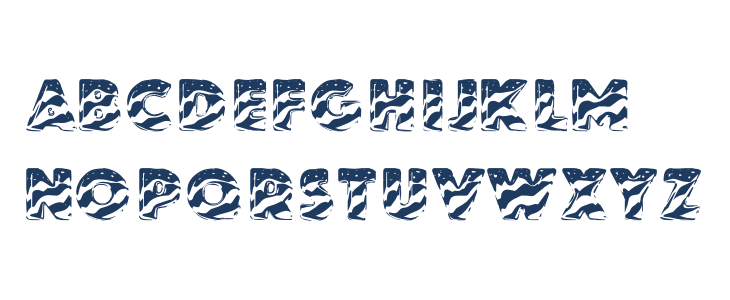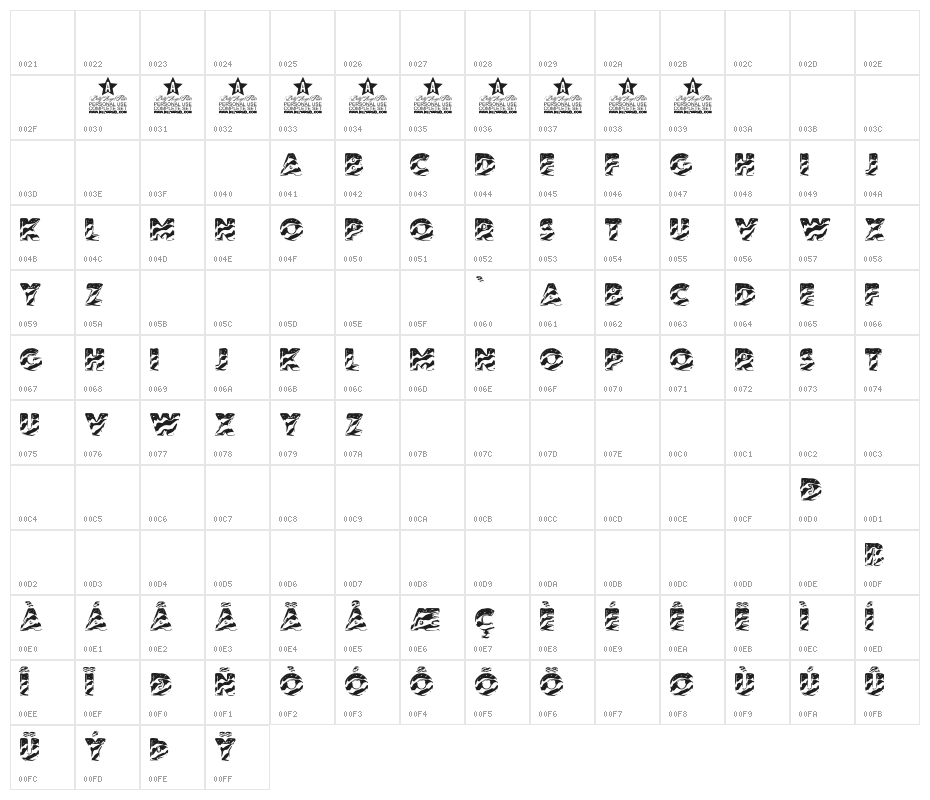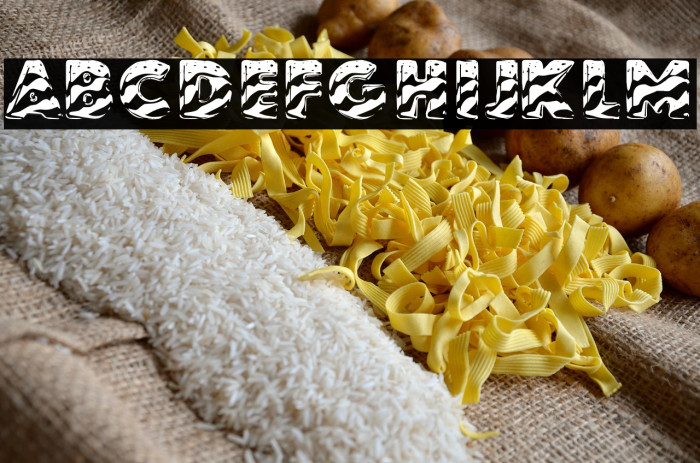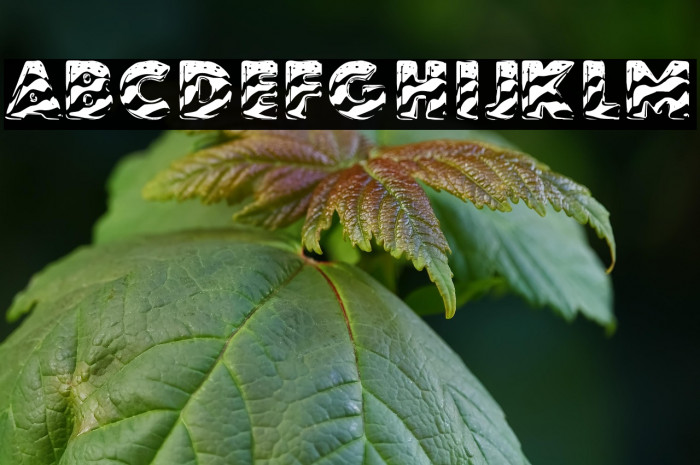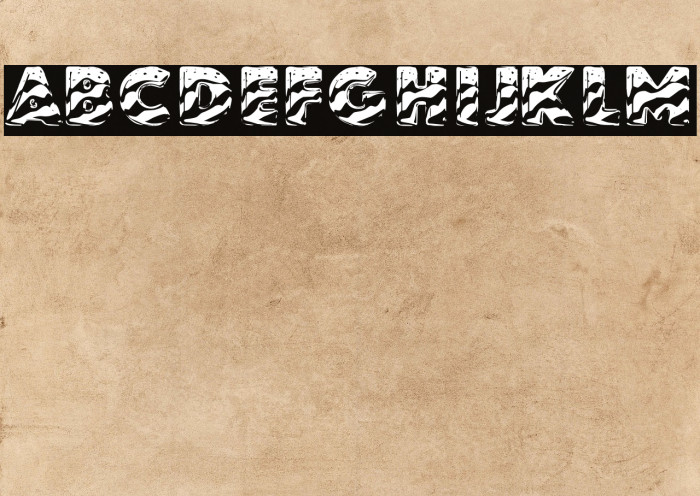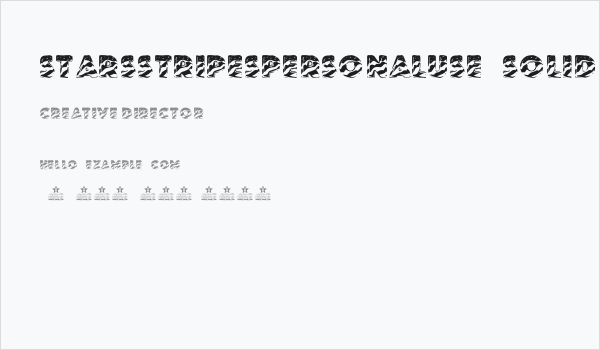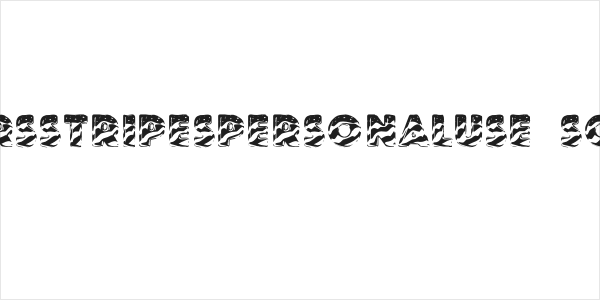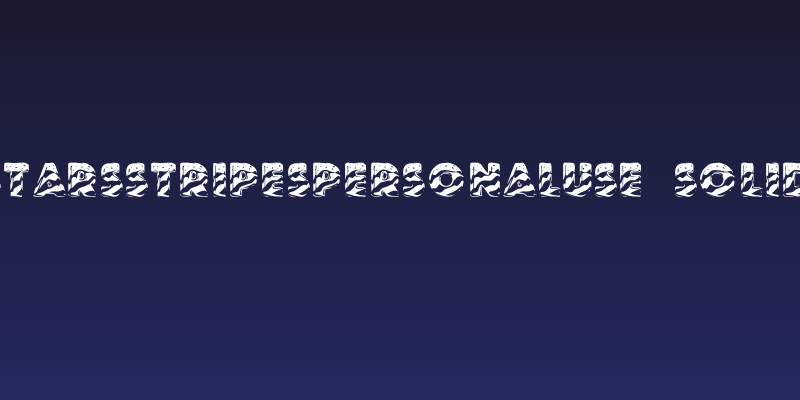
STARSSTRIPESPERSONALUSE-Solid Font
STARSSTRIPESPERSONALUSE-Solid Description
A bold, decorative display font featuring uppercase letters with a stars and stripes pattern reminiscent of the American flag. The letterforms are blocky and geometric, filled with high-contrast black and white motifs. No lowercase, numerals, or punctuation are present in the sample.
| Overall Style | Decorative, Patriotic, Bold |
| Use Case | Headlines, Posters, Event Graphics, Logos |
| Proposed Projects | Patriotic event posters, holiday banners, themed party invitations, parade signage, celebratory graphics. |